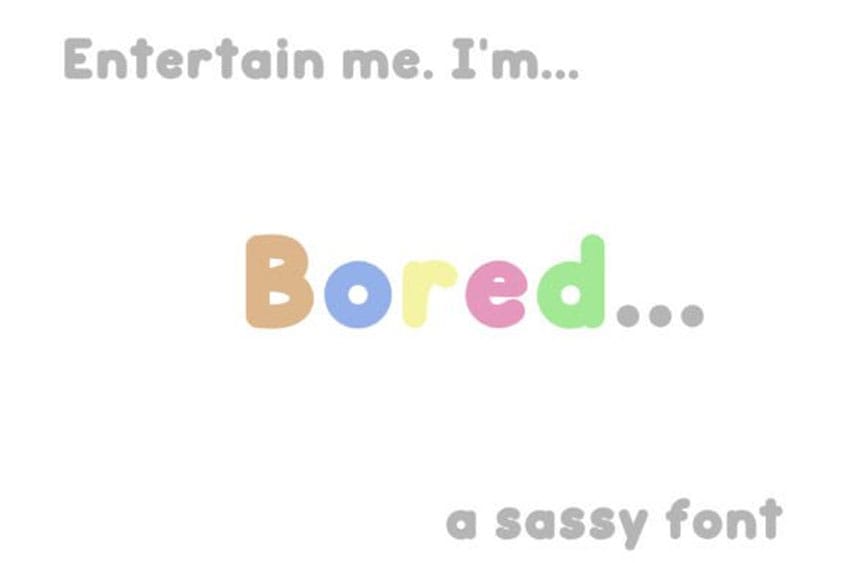
Bored Font is a cute font that is perfect for bold and personality-driven projects.
It is a chunky and big bubble display font that can be used for many purposes, including professional and home projects. Cute Bubble Font!